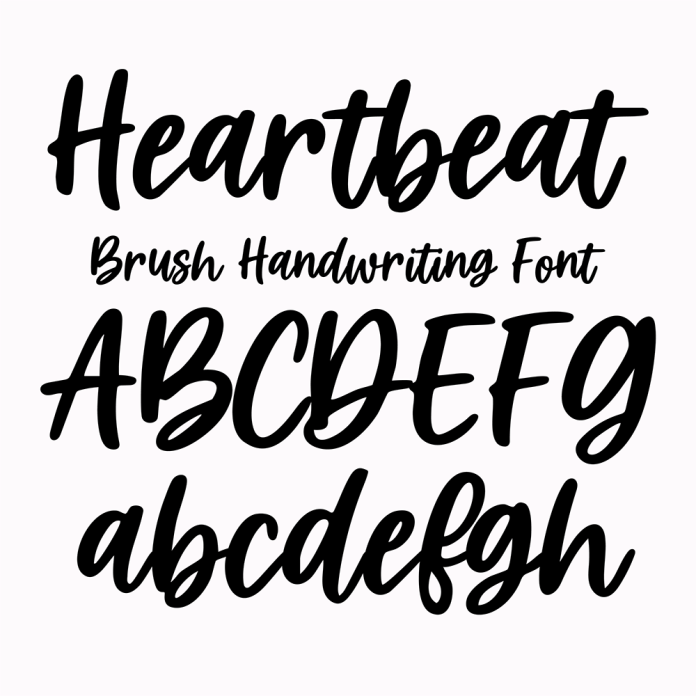
BFC Heartbeat Casual Brush Script Font is a stylish and modern typeface characterized by its flowing brush strokes and casual yet elegant script. It features a unique heartbeat-like rhythm in its letterforms, adding a touch of creativity and playfulness to any design. This font is perfect for adding a personal and artistic flair to branding, invitations, and social media graphics.